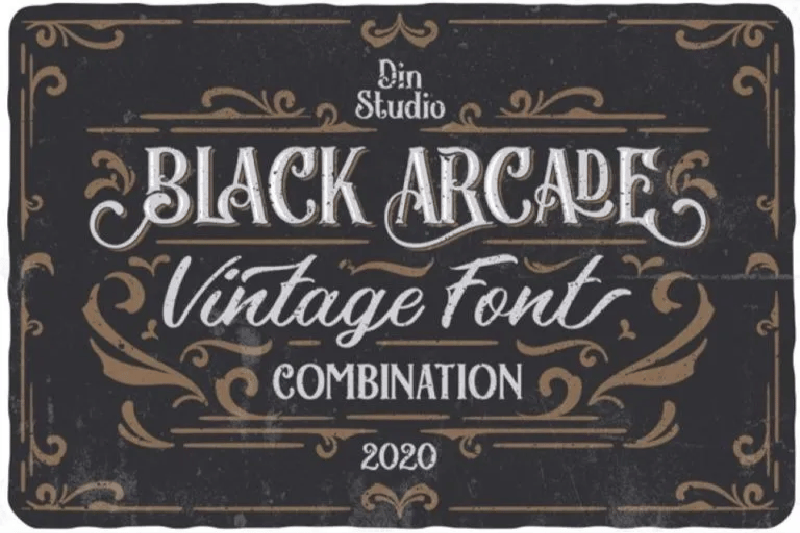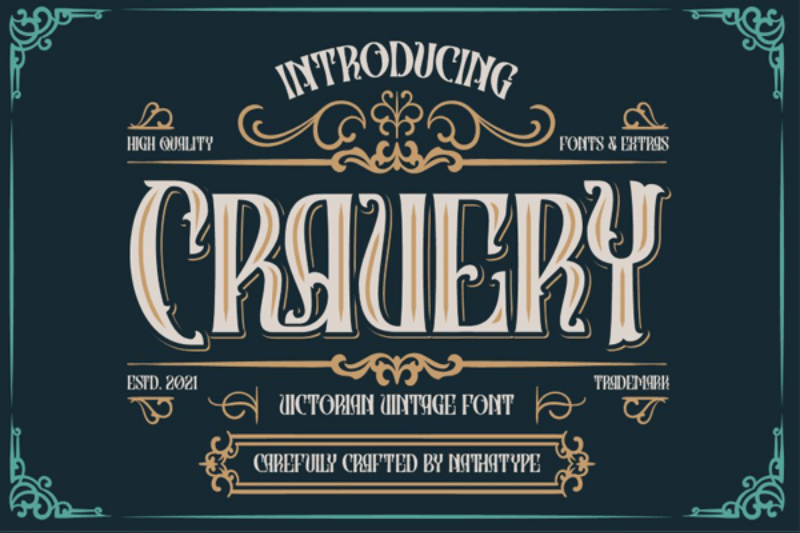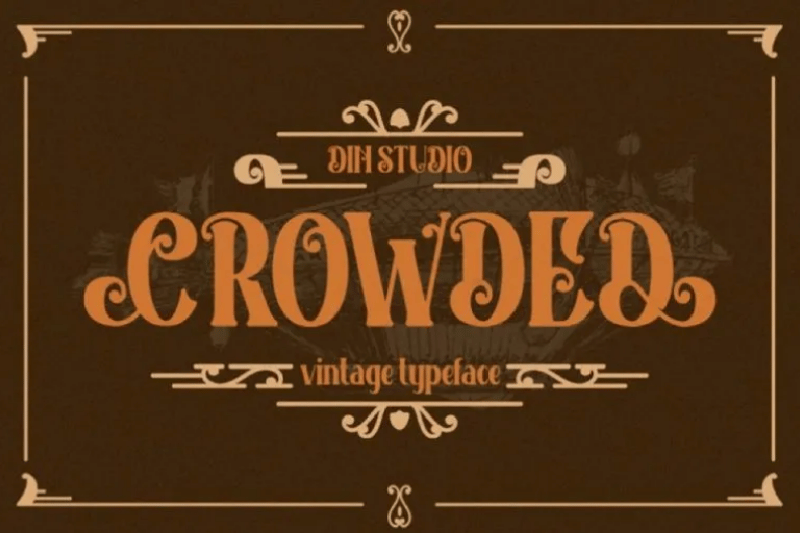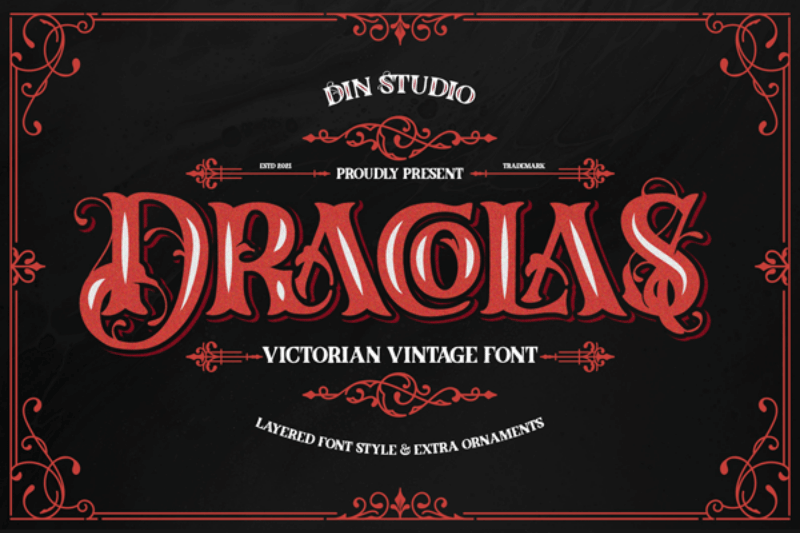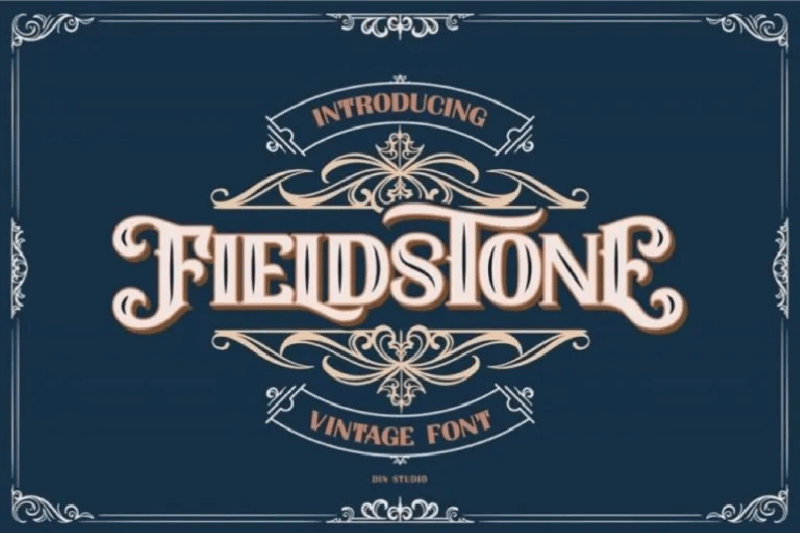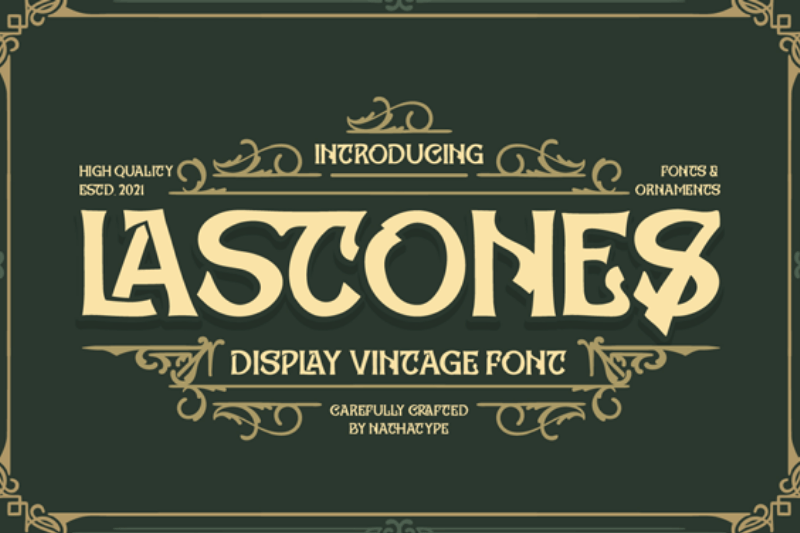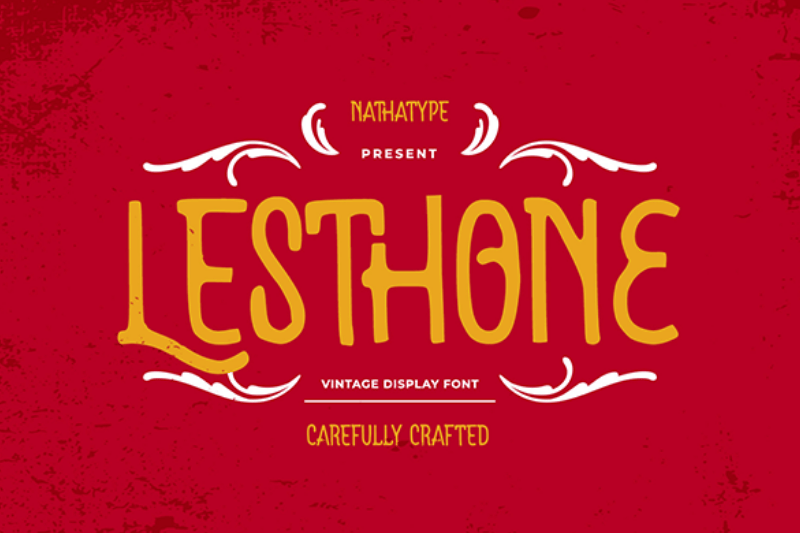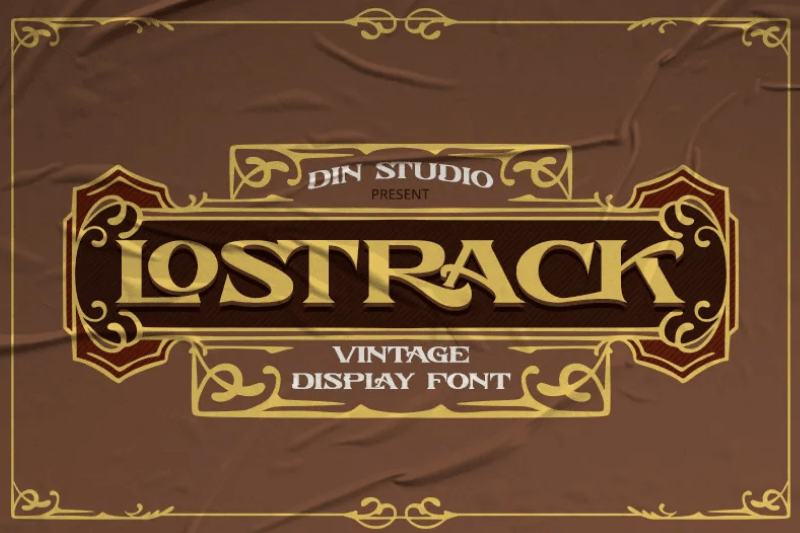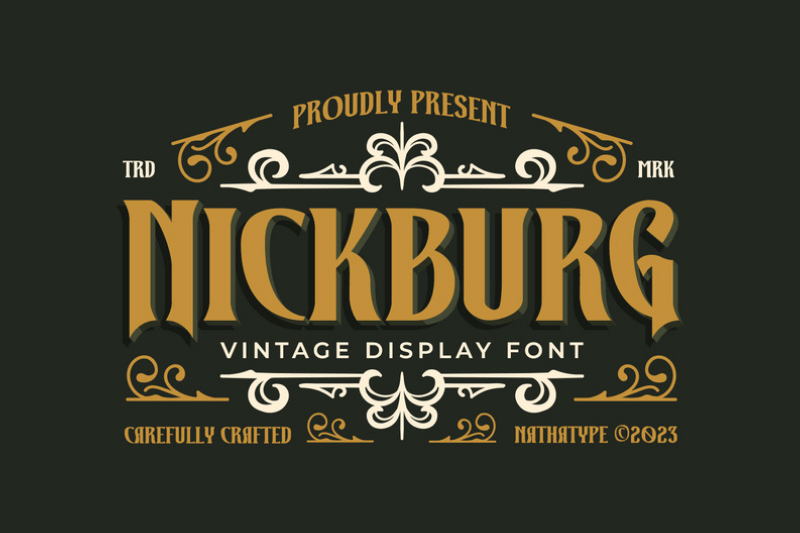
14 Decorative Vintage Fonts for Stunning and Classic Designs
Decorative vintage fonts have a visual character that is rich in details. This type of font is often used to present a design atmosphere inspired by past styles like the Victorian era, retro signage, or classic posters.
In the modern design world, decorative vintage fonts are still popular, as they give a unique and characterful visual identity. From product branding and poster design to packaging labels and retro logos, these fonts help create a nostalgic impression with a strong aesthetic value.
This article will explore 15 of the most recommended decorative vintage fonts you can use for various projects, including classic, elegant, and vintage-themed ones.
Akserant Display
Akserant Display presents an elegant nuance with classic, ornamental details. Old posters, traditional product labels, and retro-styled signage often feature classic typography, which serves as the inspiration for this font. This is one of the decorative vintage fonts that is complete with swash alternates and varied ornament bonuses. This feature allows designers to explore various typography compositions.
Moreover, its decorative shape makes Akseran Display ideal for various retro design projects, such as vintage logos, retro posters, classic packaging, and heritage-styled branding.
Black Arcade
The strong vintage character with classic ornament details is the distinctive feature of Black Arcade. This font has a bold, stable letter structure. With a striking visual, Black Arcade works perfectly as a display font for various types of headlines.
Black Arcade is a vintage font combination that blends multiple typographic styles designed to complement each other within a single composition. With its distinctive style and retro mood, Black Arcade serves as an effective decorative vintage font that adds a classic touch to contemporary designs.
Carlingthon
Carlington is one of the most decorative vintage fonts that highlights a classic typography style with an elegant retro nuance. The letterforms combine high serifs with decorative curves, making the structure appear thin and solid at the same time. The contrast between the solid letter stems and the curved terminals creates a distinctive trait. As a result, Carlington presents an authentic vintage atmosphere that gives an artistic touch for various retro design projects.
Cravery
Cavery features a Victorian-style font in all of its strokes. Its big, dramatic letterforms have a traditional serif structure common to nineteenth-century design styles. This font’s terminal parts stand out with their curved and ornate characters, which provide a touch of refinement and elegance.
Cavery is one of the decorative vintage fonts with an incredibly effective visual character, suitable for designs with a vintage feel that is luxurious and historical. Besides that, Cavery works perfectly on classic event posters, vintage brand logos, retro-style signage, and more.
Fieldstone
Fieldstone has a bold serif letterform combined with decorative curves that give a sense of elegance and class. Its bold serif character makes it look stable, while the curvy element and smooth ornaments enrich the visual character without making it look complicated. The main attractiveness of this font is its bold yet decorative feel.
Fieldstone’s character works well as a display font for various design needs, particularly those with ornamental vintage themes. As a result, this decorative vintage font can present a distinctive old look with a powerful appeal.
Lesthone
Among all decorative vintage fonts in this list, Lesthone offers a retro style with a simpler approach yet maintains its decorative look. The letterforms look soft with the smooth curves, giving off a sense of warmth and friendliness without losing their classic nuance.
The combination of simple letterforms and light, decorative touches makes Lesthone appear flexible for various vintage design compositions. This font is perfect for designs like traditional product packaging, retro event posters, and classic brands’ logos.
Lostrack
Lostrack has a pleasing appearance due to the combination of a powerful letterform and precise decorative details. The powerful serif and stable structure create a classic impression, while the ornate swashes add to the font’s royal appearance. Lostrack is one of the decorative vintage fonts that is perfect for elegant, vintage designs.
Nickburg
This decorative vintage font uses a bold serif structure with a slightly elongated proportion, creating a distinctive and outstanding appearance. Nickburg has an interesting character; its serif is made sharp and a little curved in some letter ends. These details provide Nickburg a smooth decorative touch that does not look overdone.